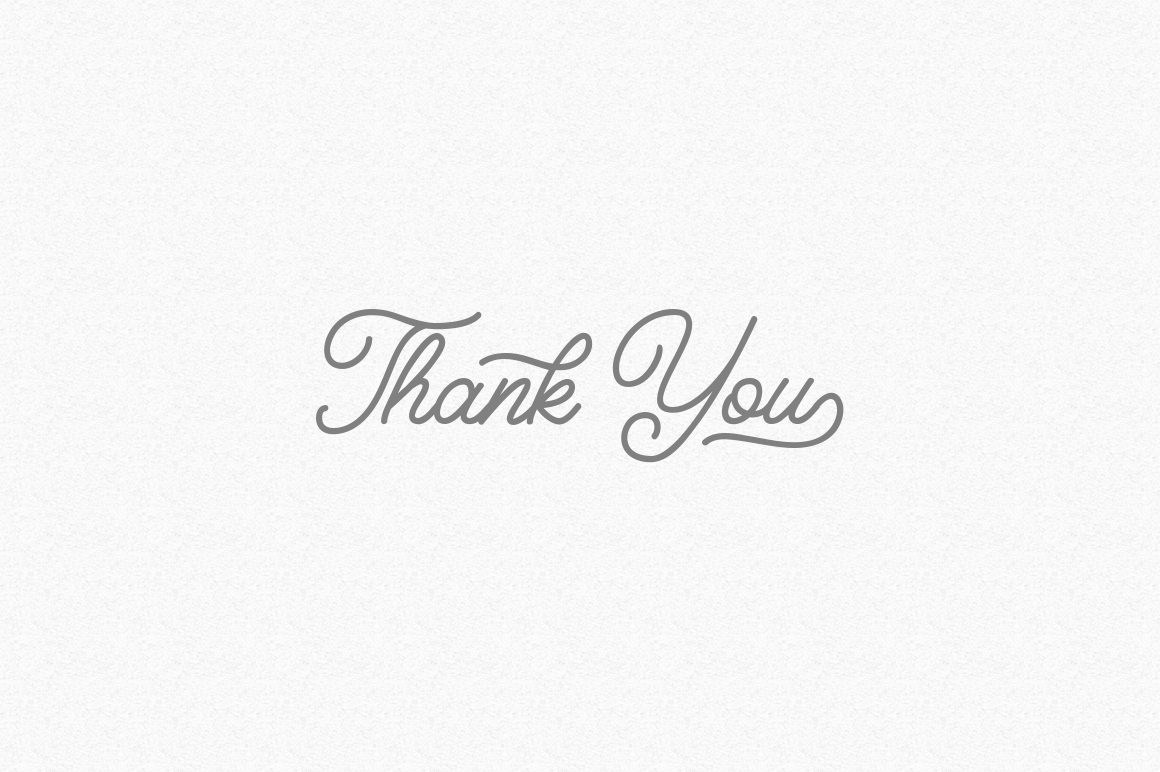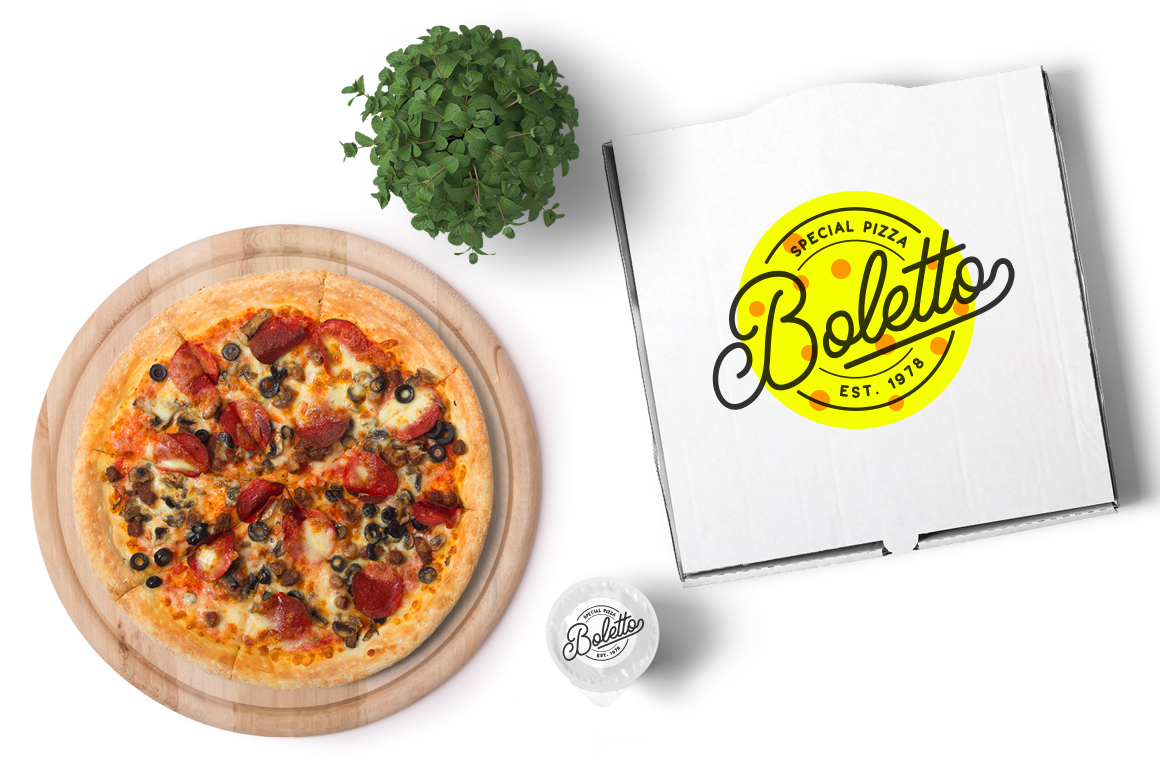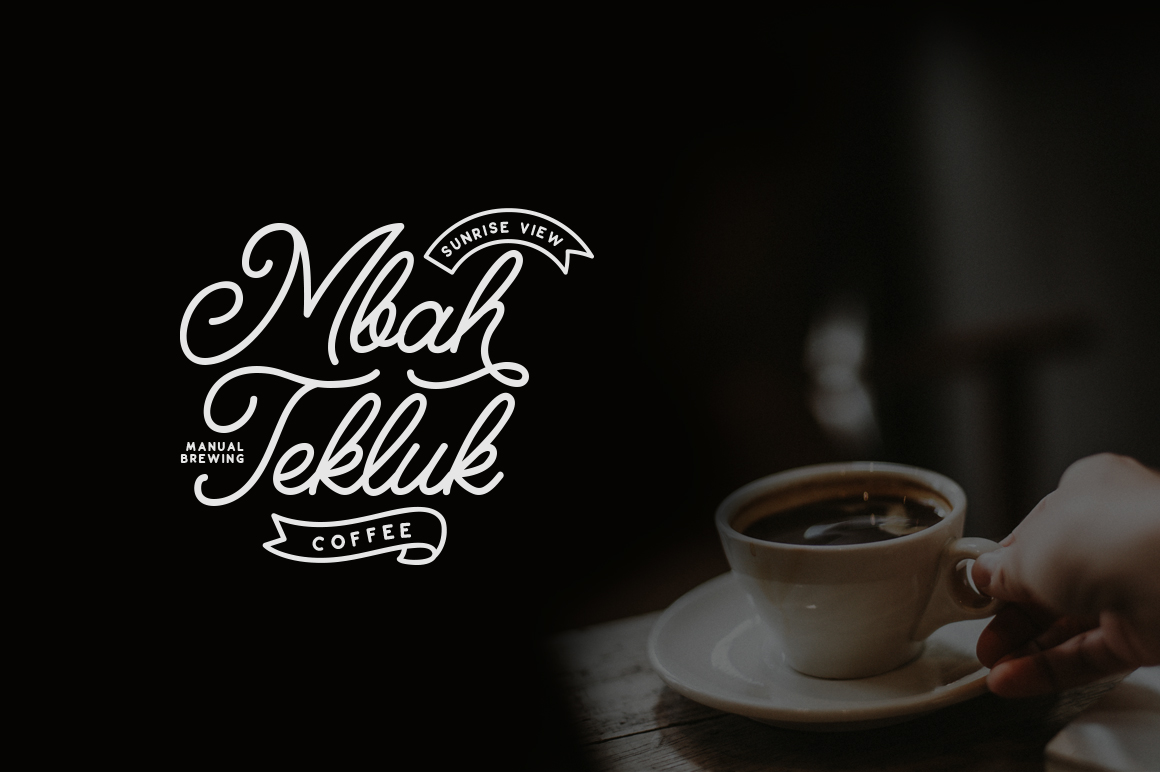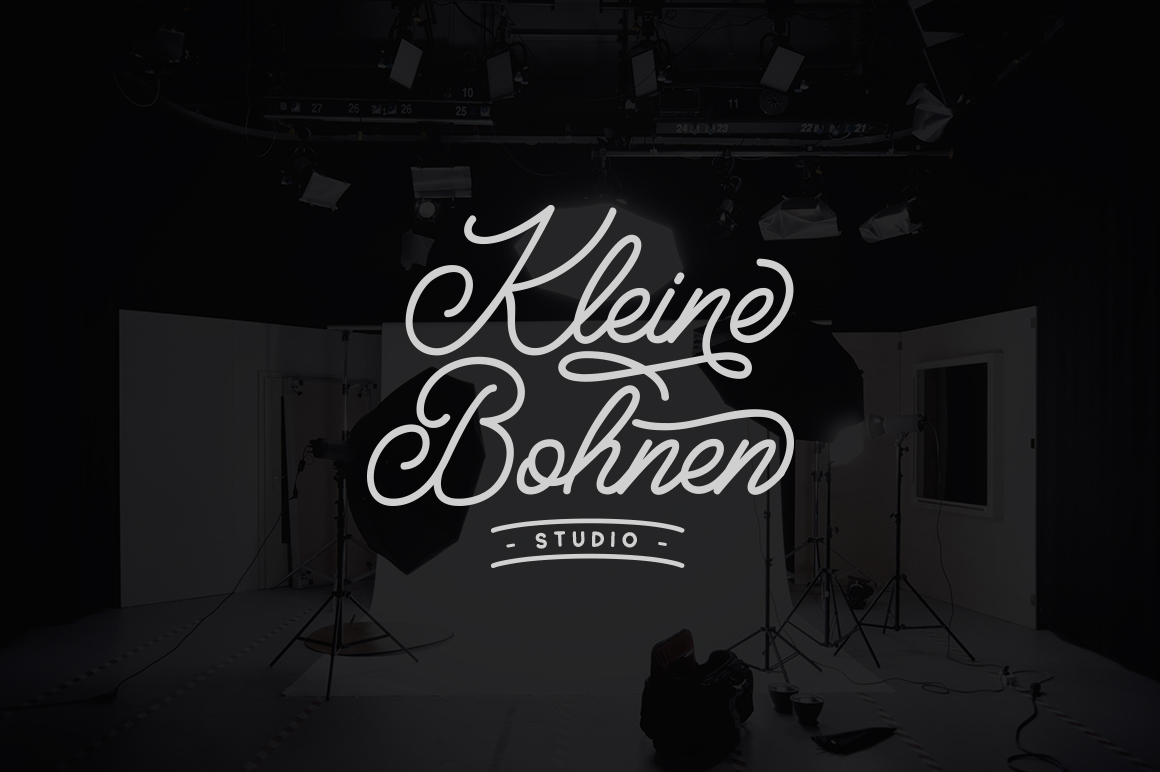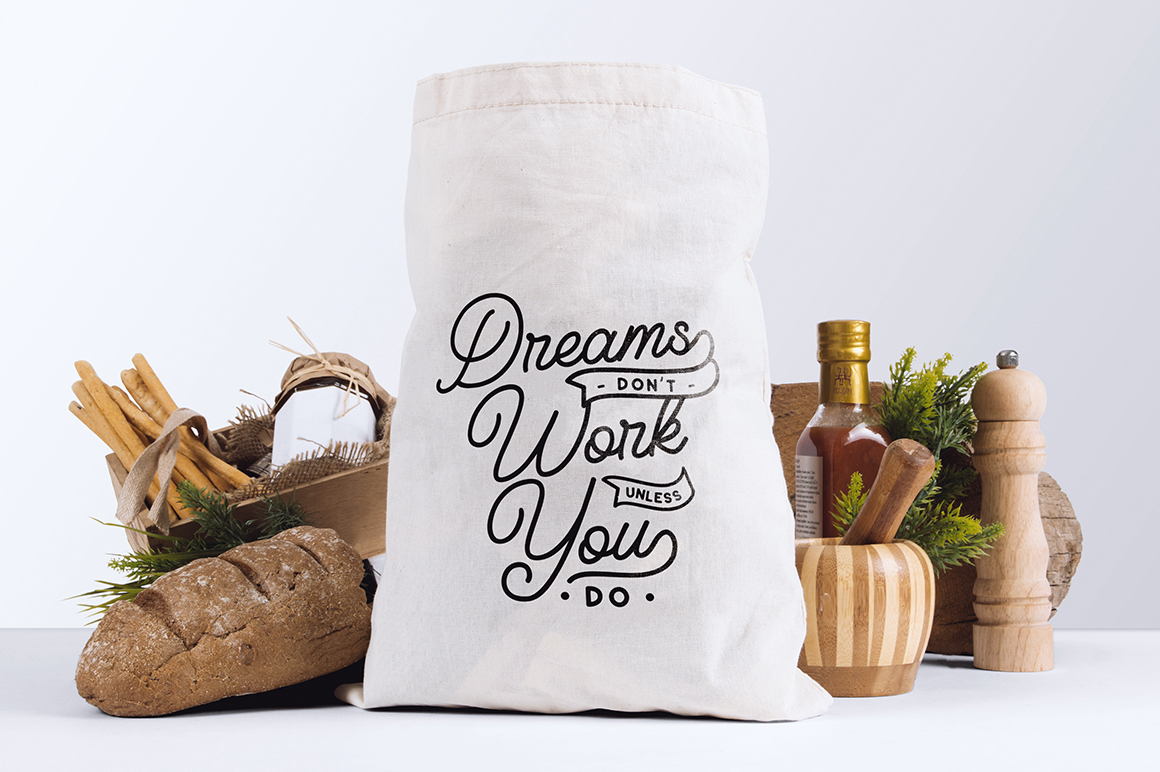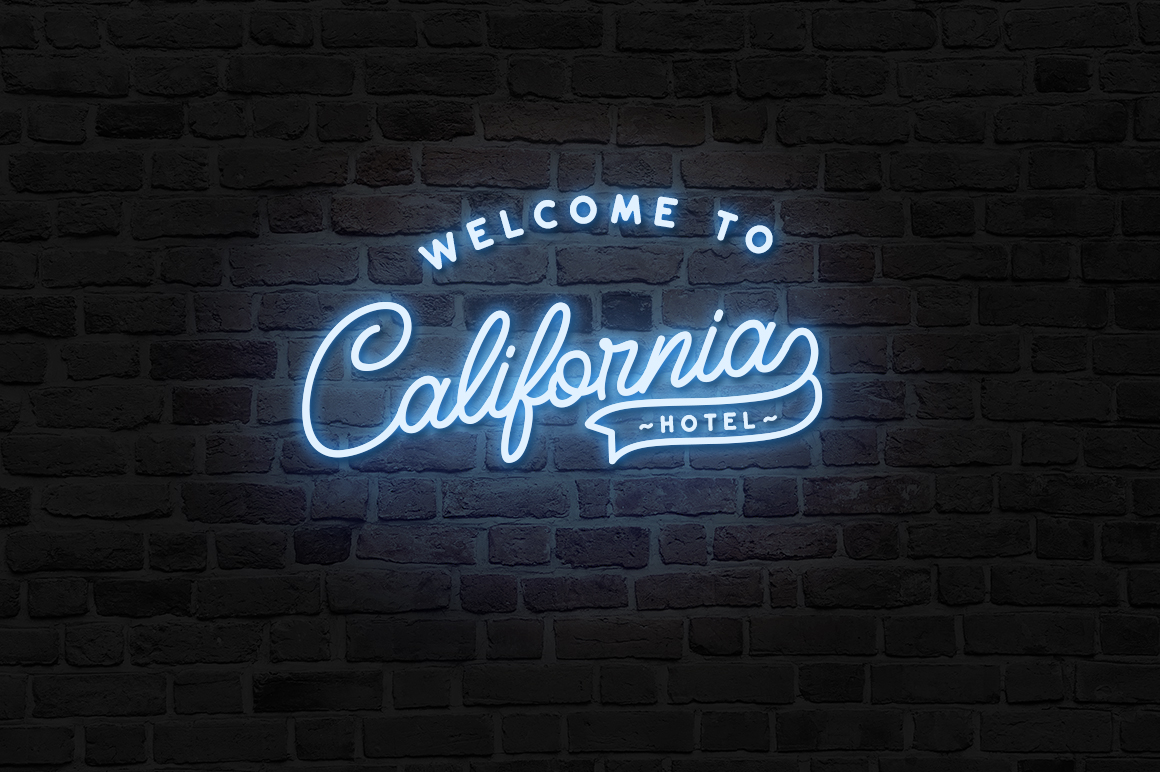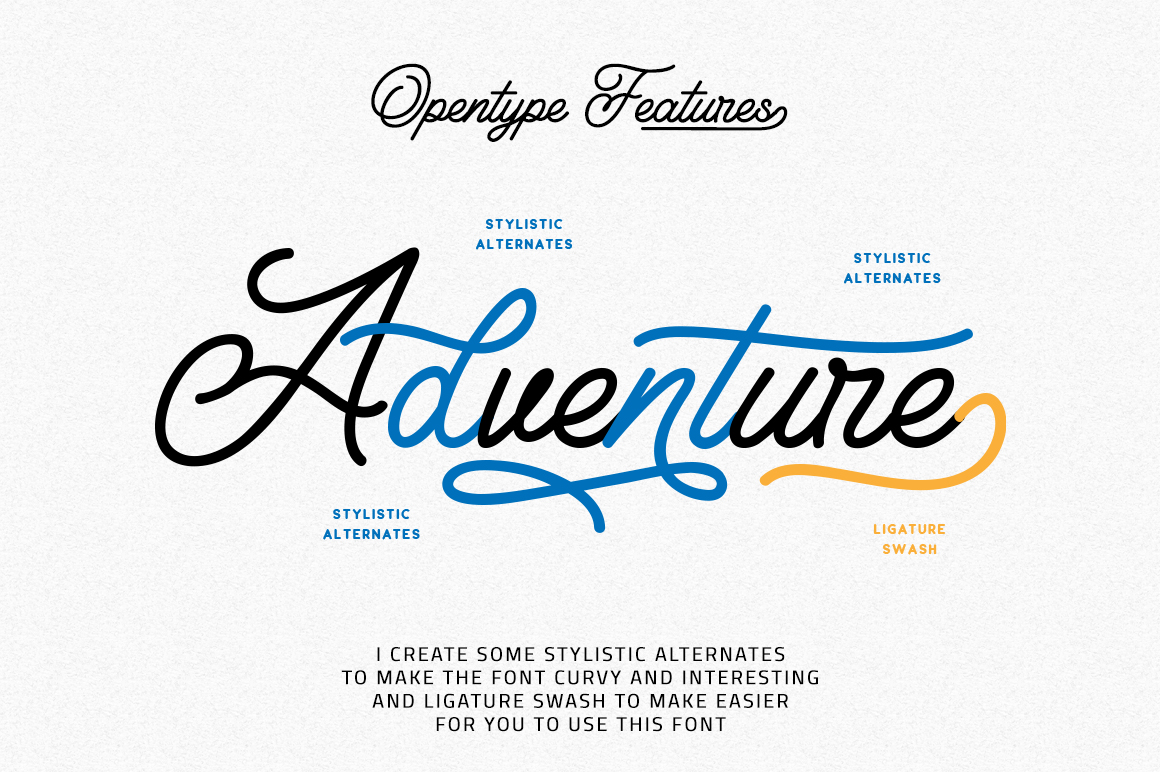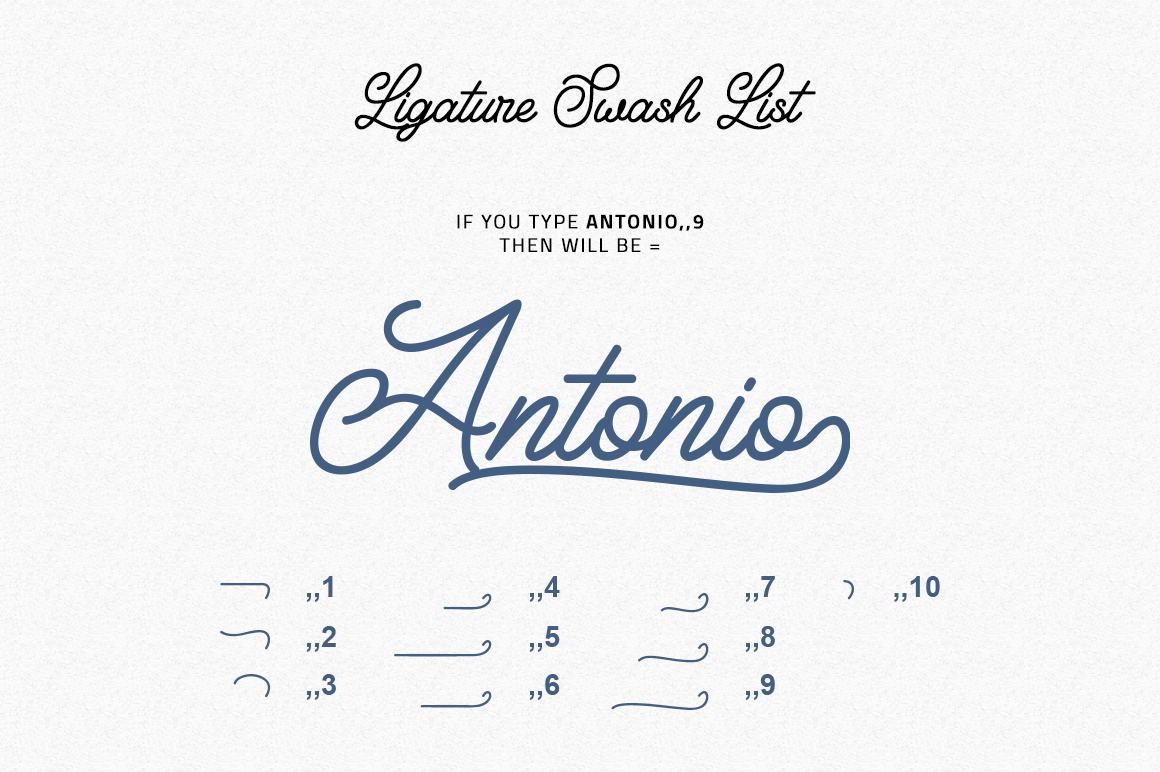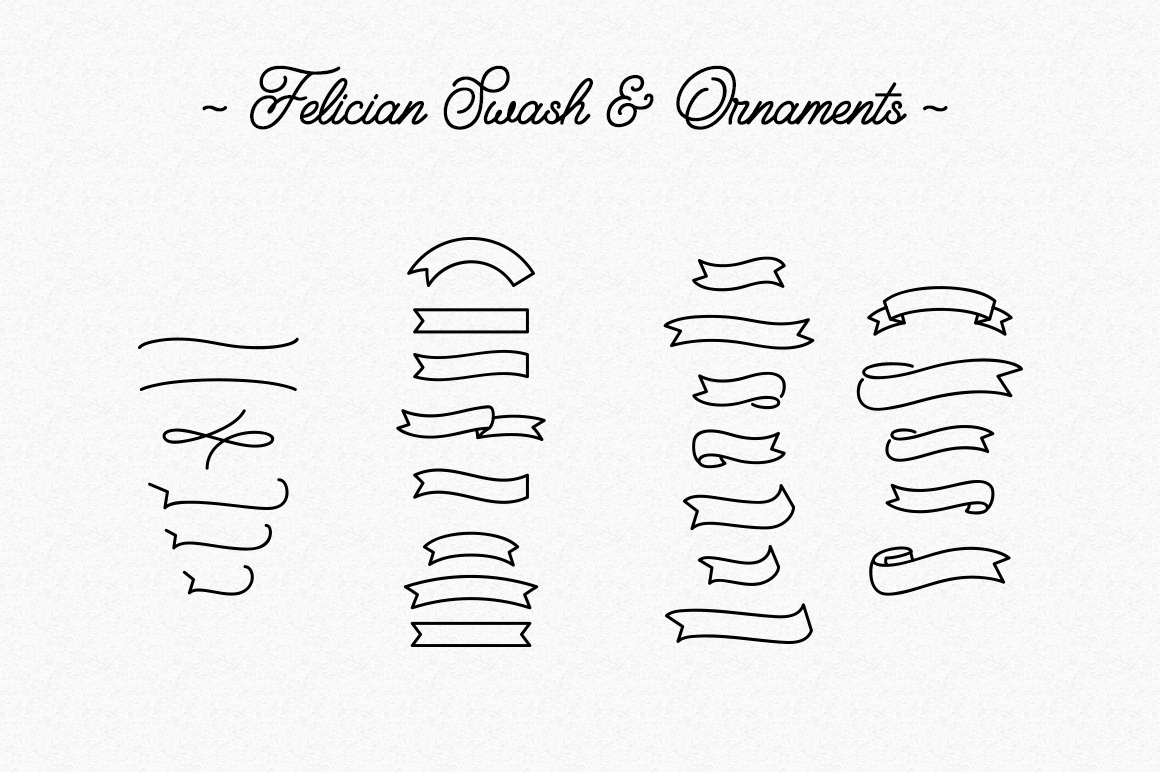
Felician Font
About Felician Font
Felician is a modern, monoline style font that is suitable for everyday use; this font comes with stylistic alternates, ligatures, swashes and more!